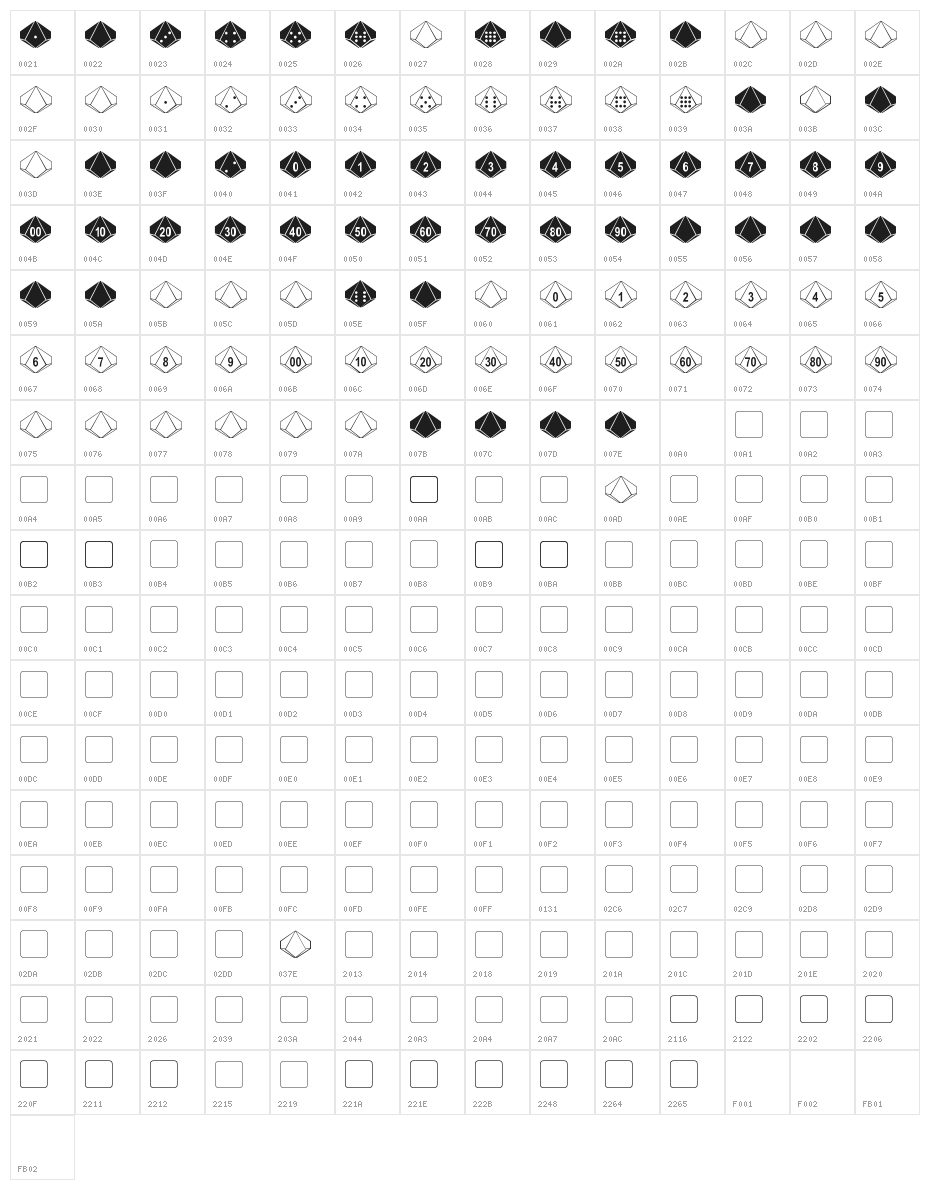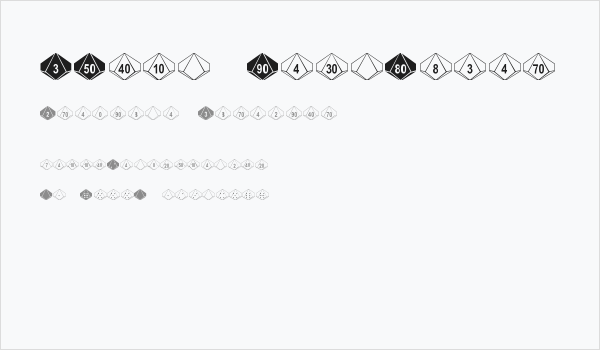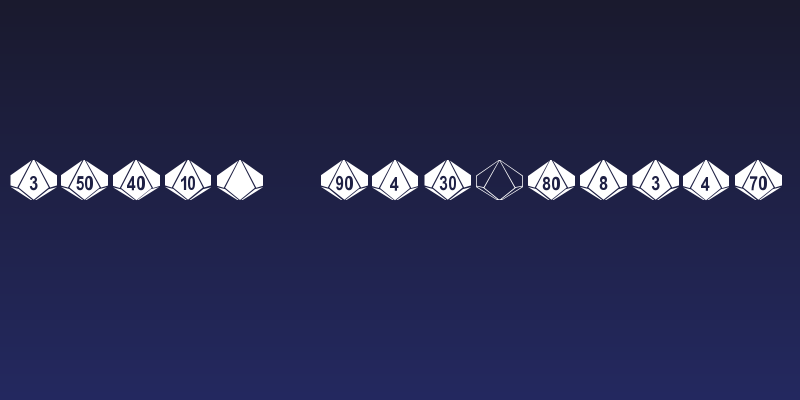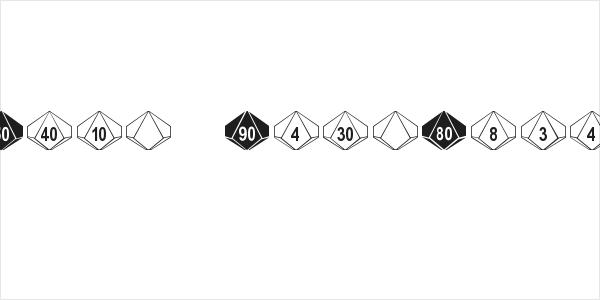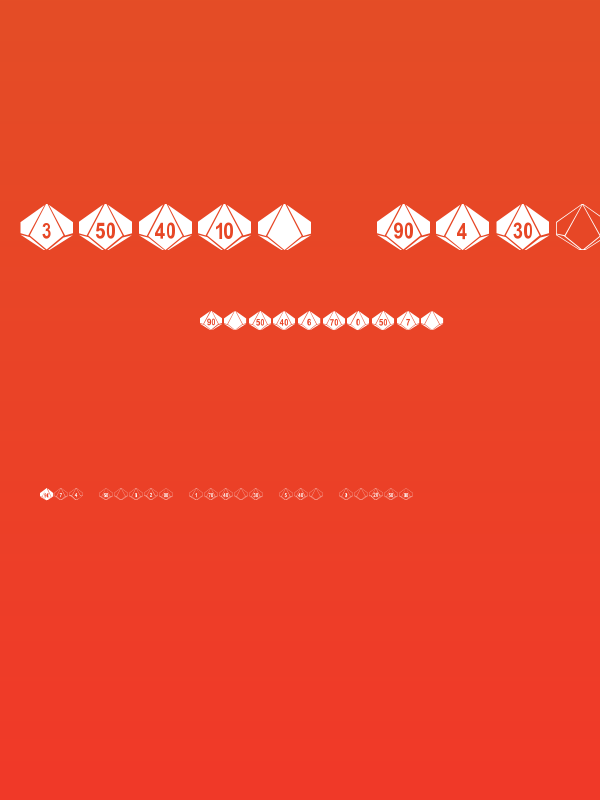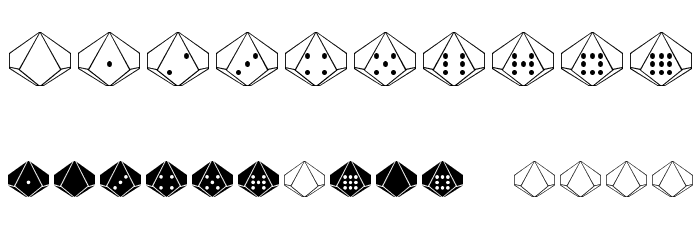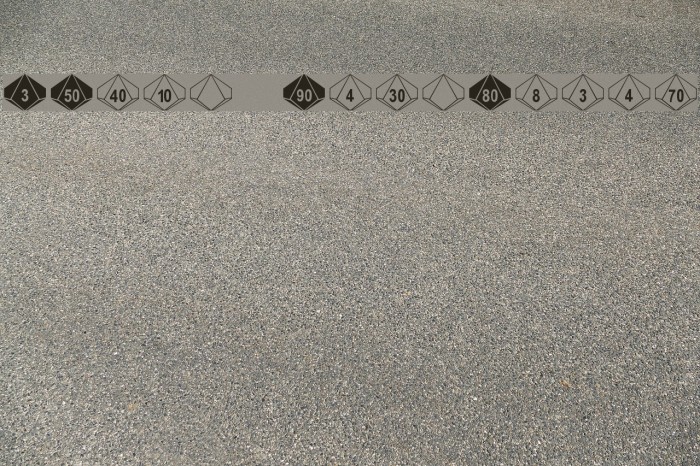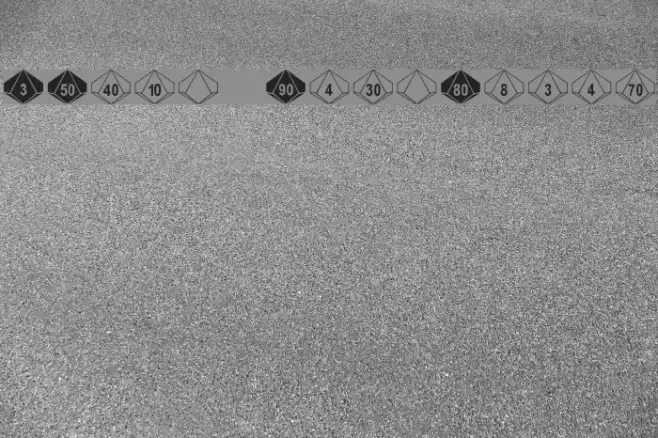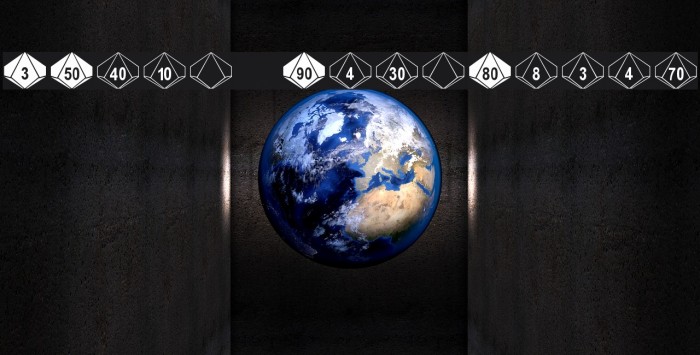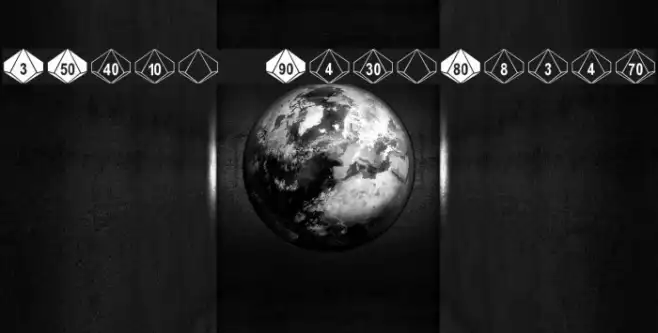
DPoly Ten-Sider Font
DPoly Ten-Sider Description
A decorative font set featuring numbers and dice dot patterns inside pentagonal shapes, mimicking the faces of ten-sided dice. The glyphs include both filled and outlined versions, with numbers, double-digit values, and dot arrangements, all centered within the geometric shapes.
| Overall Style | Decorative, playful, thematic |
| Use Case | Headlines, logos, game components, themed graphics |
| Proposed Projects | Tabletop gaming materials, board game design, RPG manuals, themed posters, educational math games. |